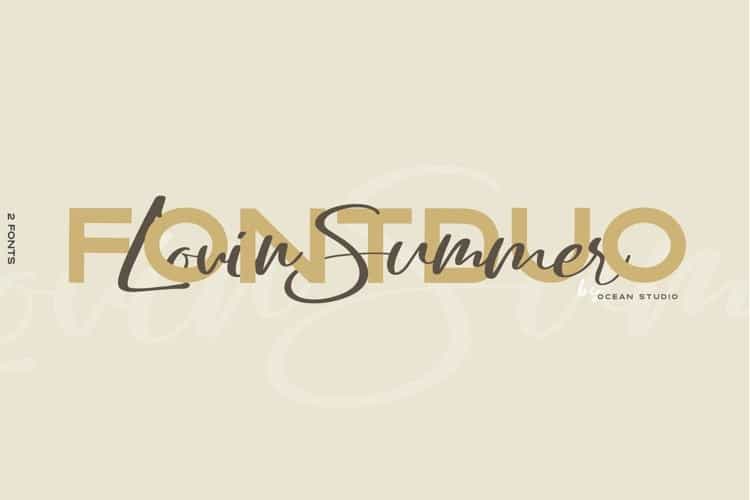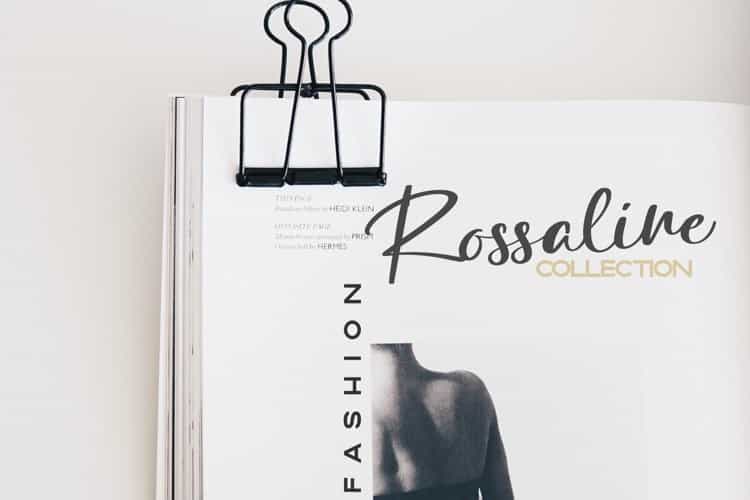
Lovin Summer is a reinterpretation of Wind Script for modern styles that will make the text look noble, delicate and modern! Thus, it was developed and published with Ocean Studio. The font is beautiful. script, along with smooth and potent sans, with the small types designed in an exceedingly graceful manners.